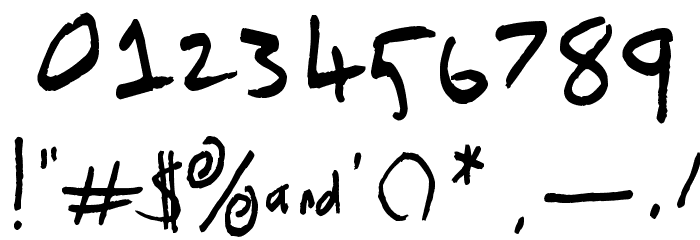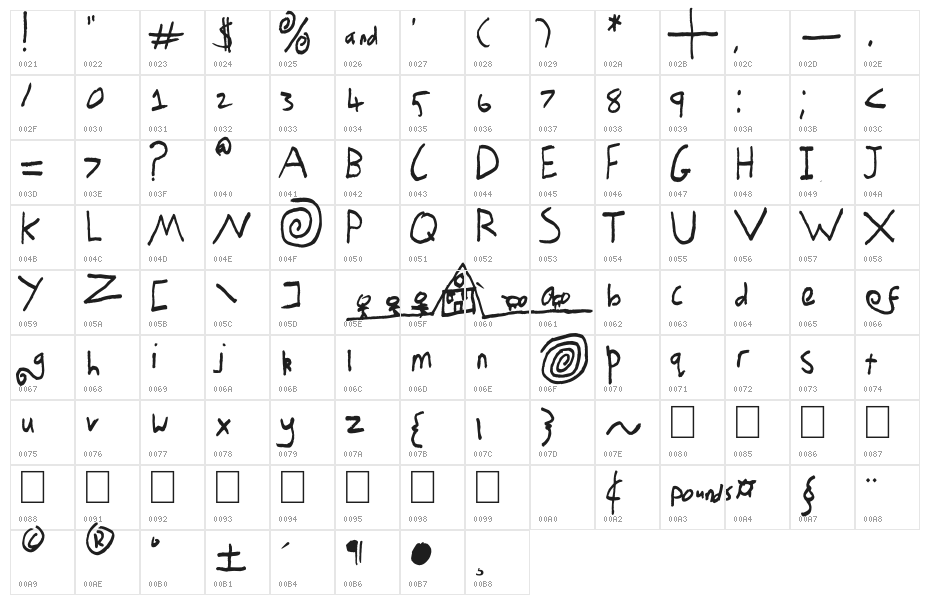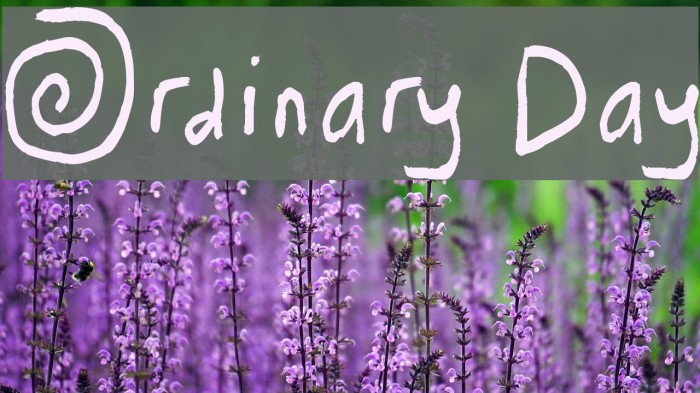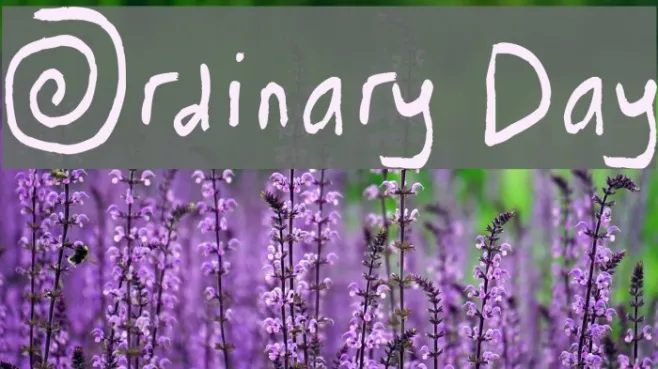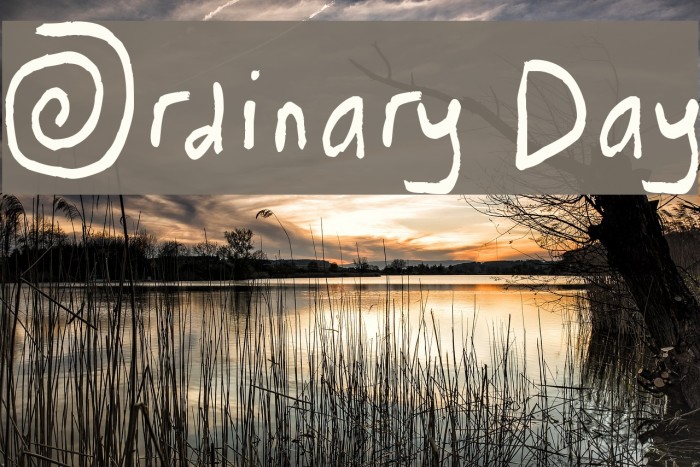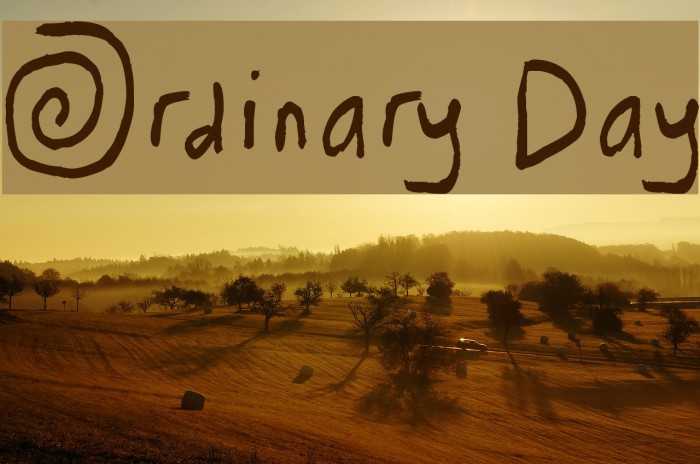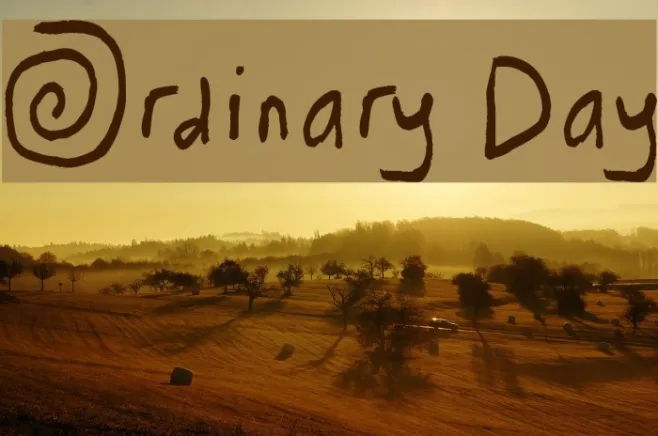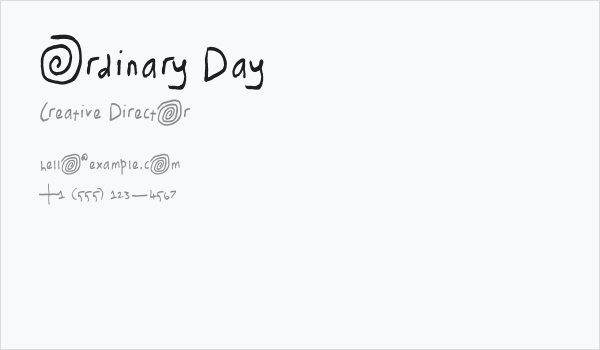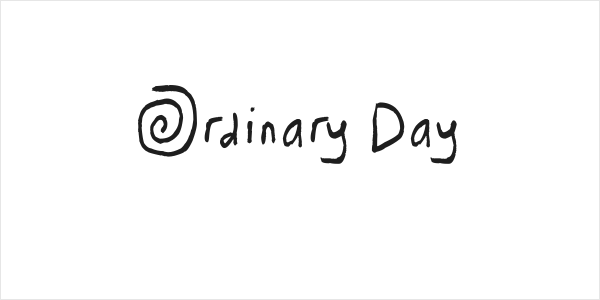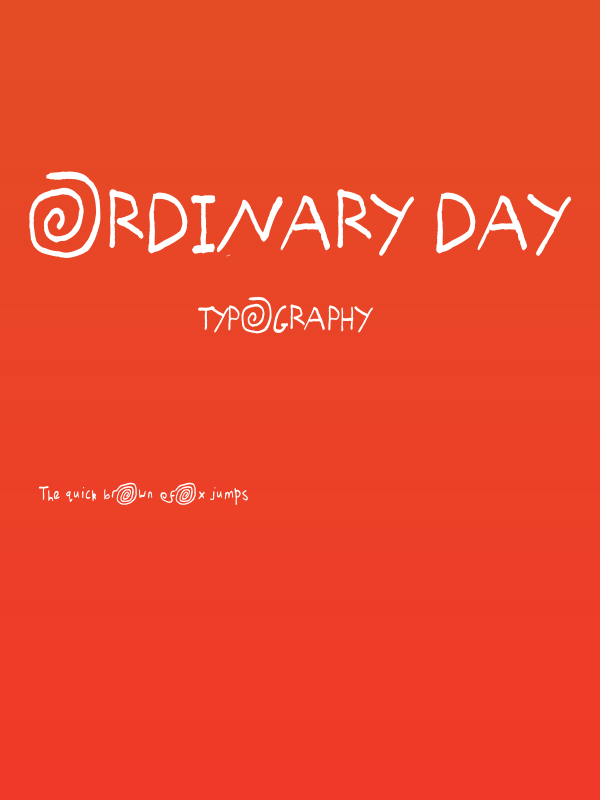
Ordinary Day Font
Ordinary Day Description
This font exhibits a playful and whimsical style, characterized by its hand-drawn appearance. The letters are irregular and feature unique elements, such as spirals in place of the letter 'O' and 'o'. The strokes are uneven, giving it a casual and artistic feel. The uppercase and lowercase letters maintain a consistent style, with some letters like 'g' and 'q' having distinctive loops. Numbers are similarly styled, with a quirky, informal touch. Special characters are creatively integrated, maintaining the overall hand-drawn aesthetic. This font is ideal for projects that require a personal, artistic touch.
| Use Case | Headlines, Artistic projects, Informal settings |
| Proposed Projects | Ideal for children's books, creative posters, greeting cards, and artistic branding. |